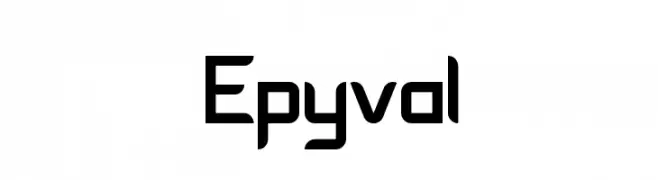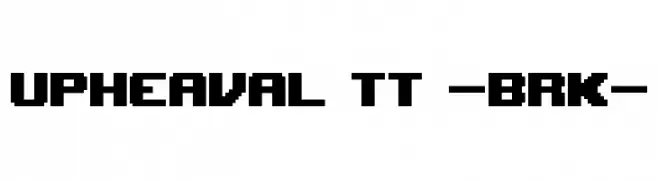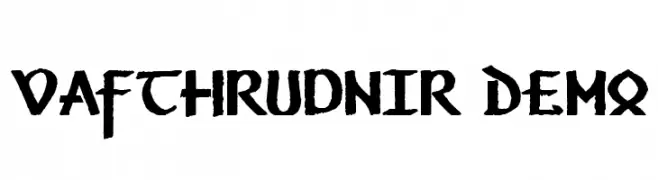
A decorative font with medieval-inspired, ornate letterforms.
A bold, geometric stencil font with an industrial feel.
A bold, pixelated font with a retro digital aesthetic.
A decorative, calligraphic font with a medieval flair.
A futuristic, geometric font with bold, angular letterforms.
A bold, medieval-inspired font with sharp serifs and dramatic strokes.
A bold, geometric font with a modern and playful style.